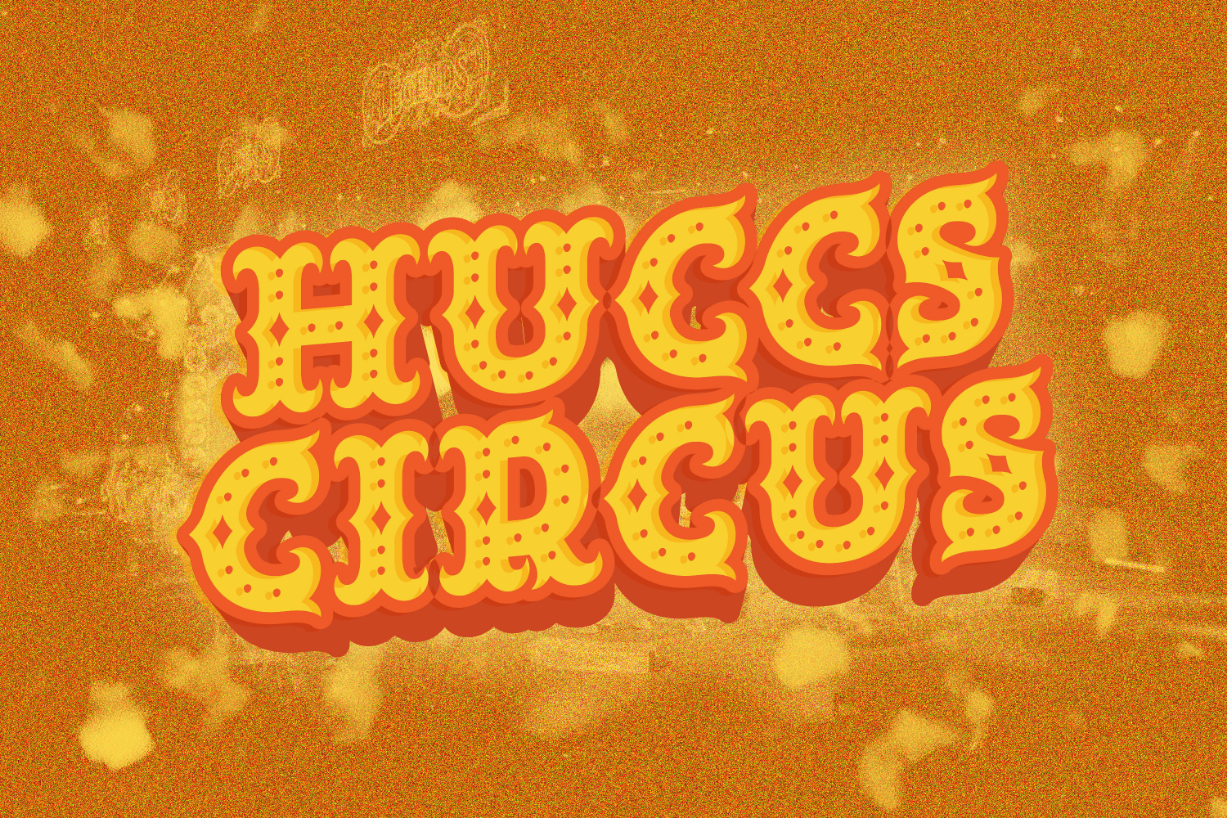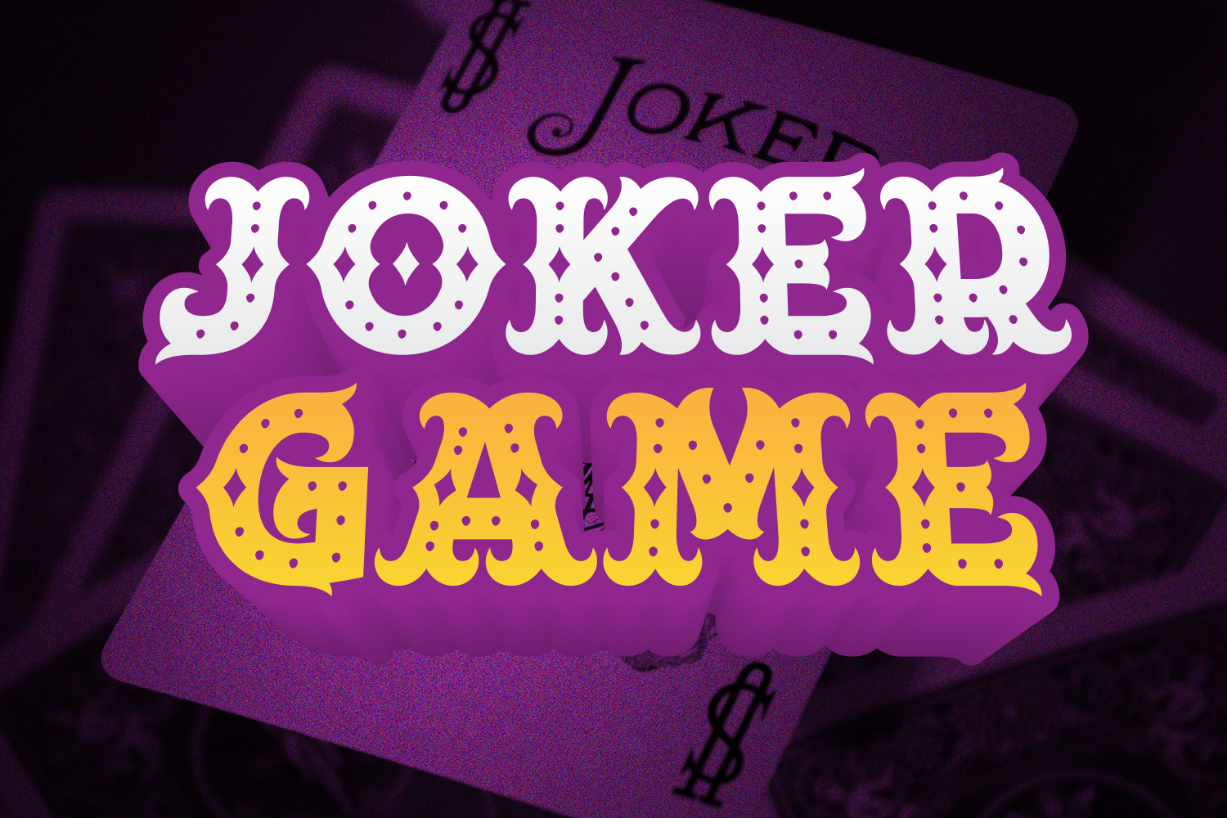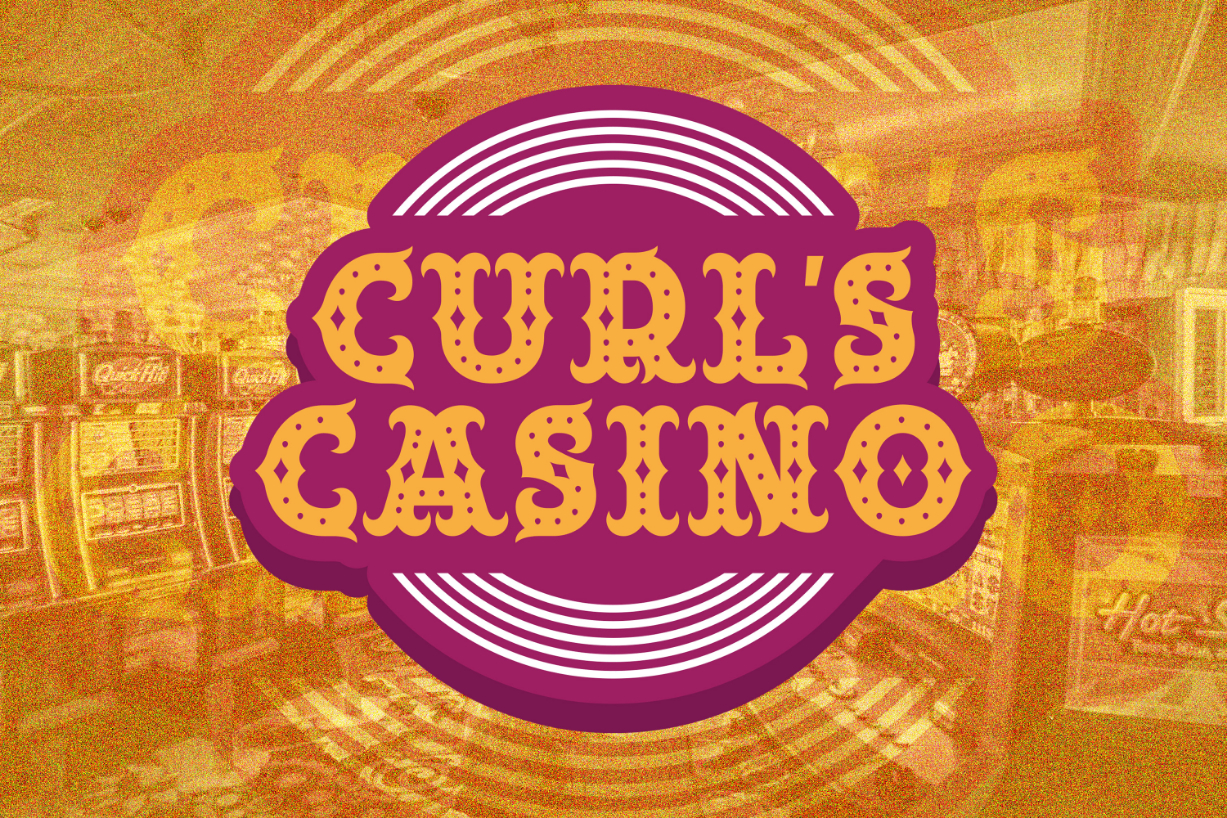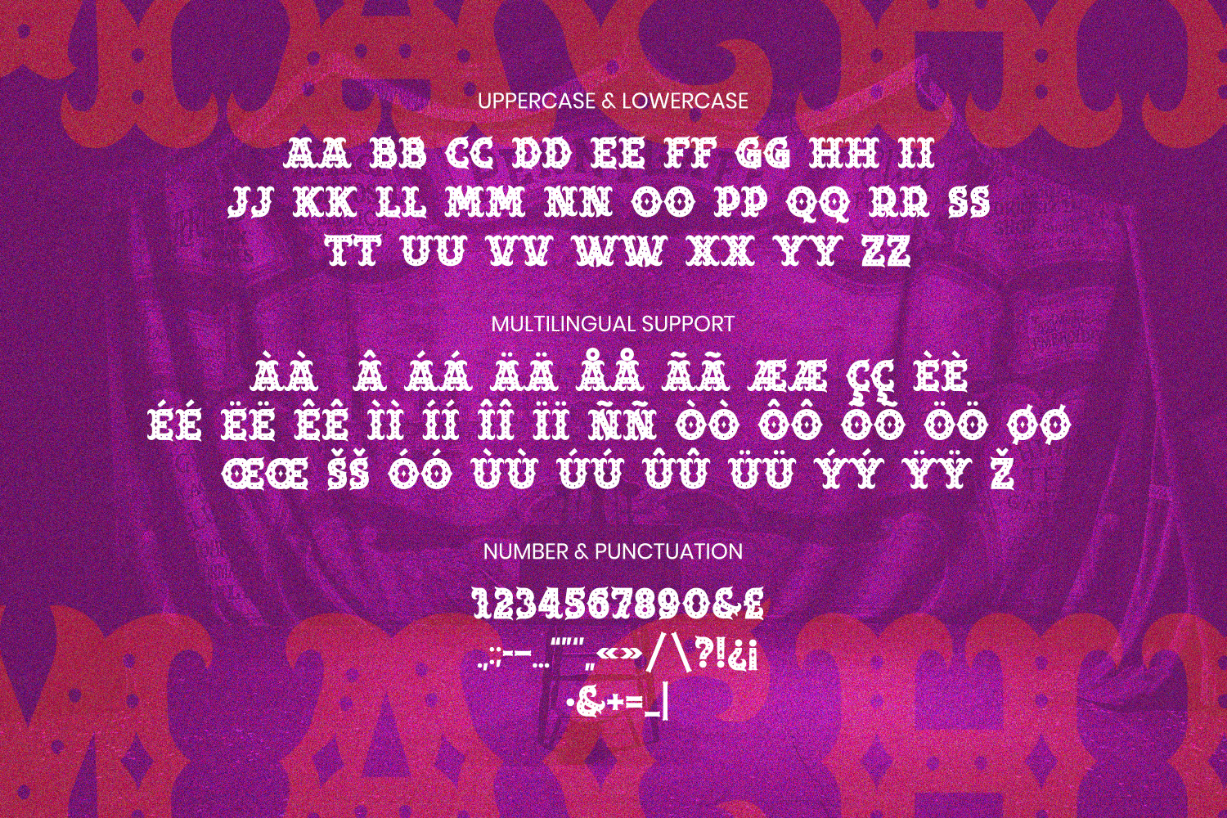
Mache Font
About Mache Font
Mache is a bold, thick lettered and vintage styled blackletter font. This font is imposing and features uniquely shaped letters, and as a result, it will easily match a wide range of creations that require a distinct touch.